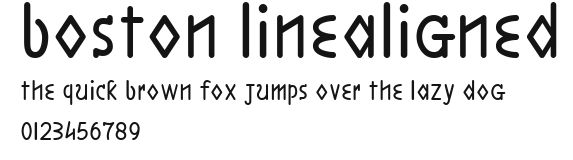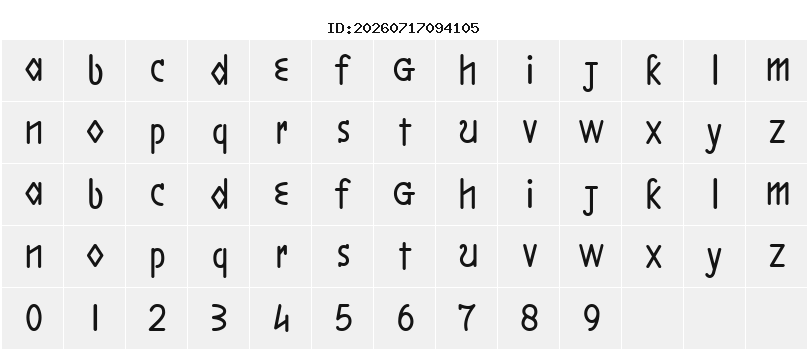
• Font Name: Boston LineAligned
• Full Font Name: Boston LineAligned
• Copyright: BOSTON LINE computer fonts ©2006 Harold Lohner • HLohner@aol.com • www.haroldsfonts.com Inspired by Samuel Gridley Howe's "Boston Line Type" raised print for the blind
About Boston LineAligned.ttf
Boston LineAligned.ttf is a modern, elegant sans-serif font designed for ultimate readability and visual harmony. Perfect for branding, headlines, web design, and print materials.